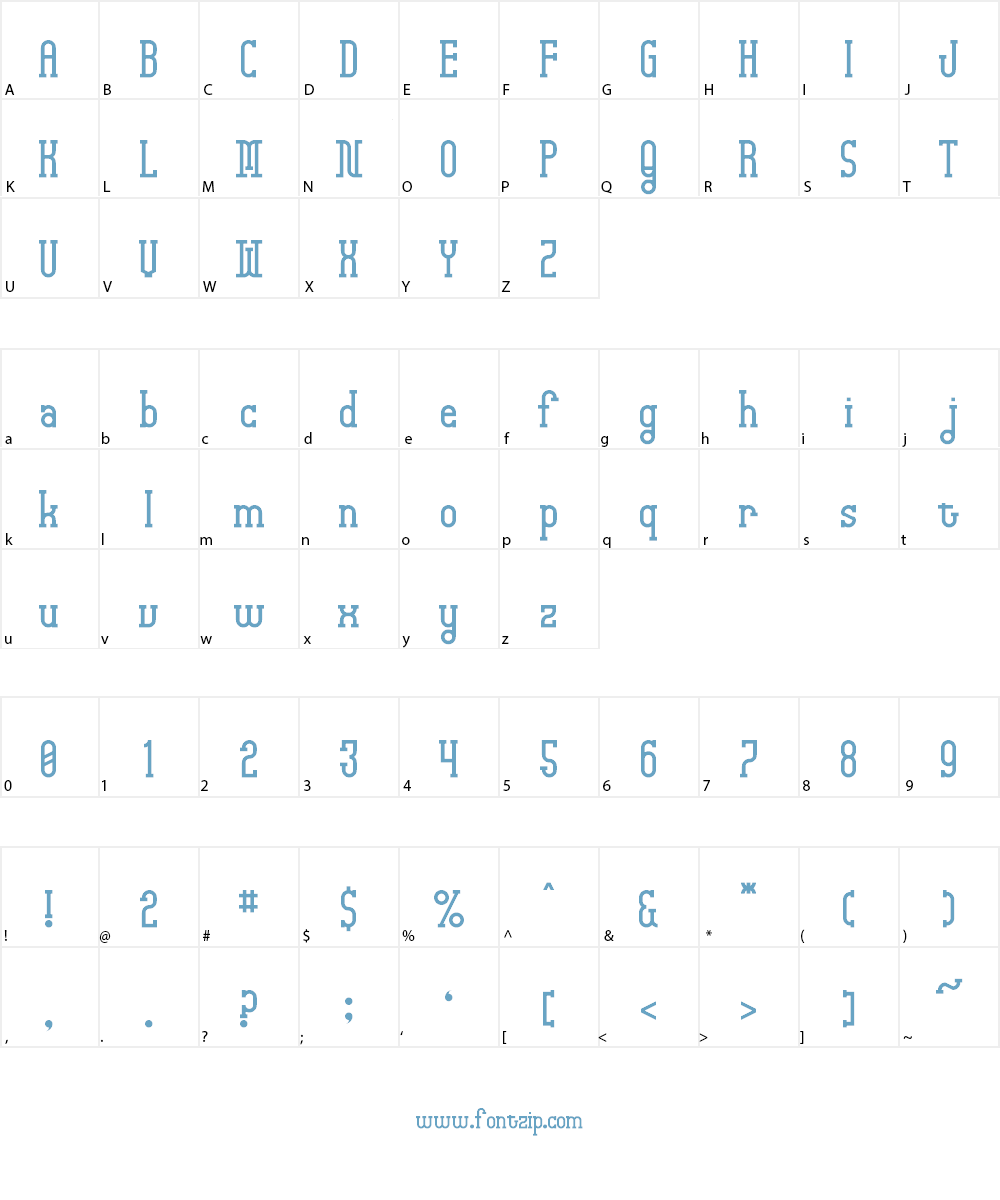
A quaint and whimsical serif doodle which quickly turned into something serious!
It supports Dutch, English, and German. More language support later, maybe?